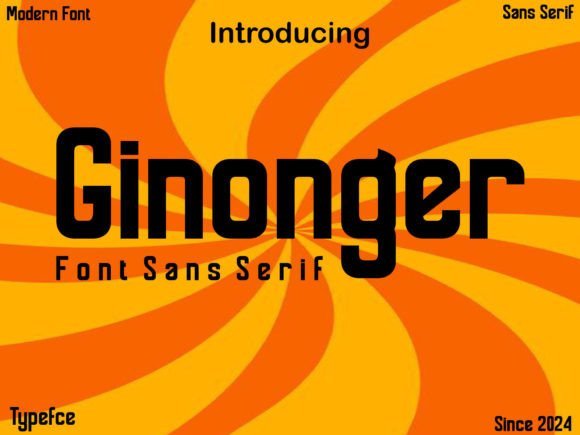
Introduction to Ginonger Font
Ginonger is a modern sans-serif font with a beautiful and minimalist shape.
Its clean, contemporary design is a great choice for any project that requires a professional touch Multilingual support, so you can use this font to reach a global audience.